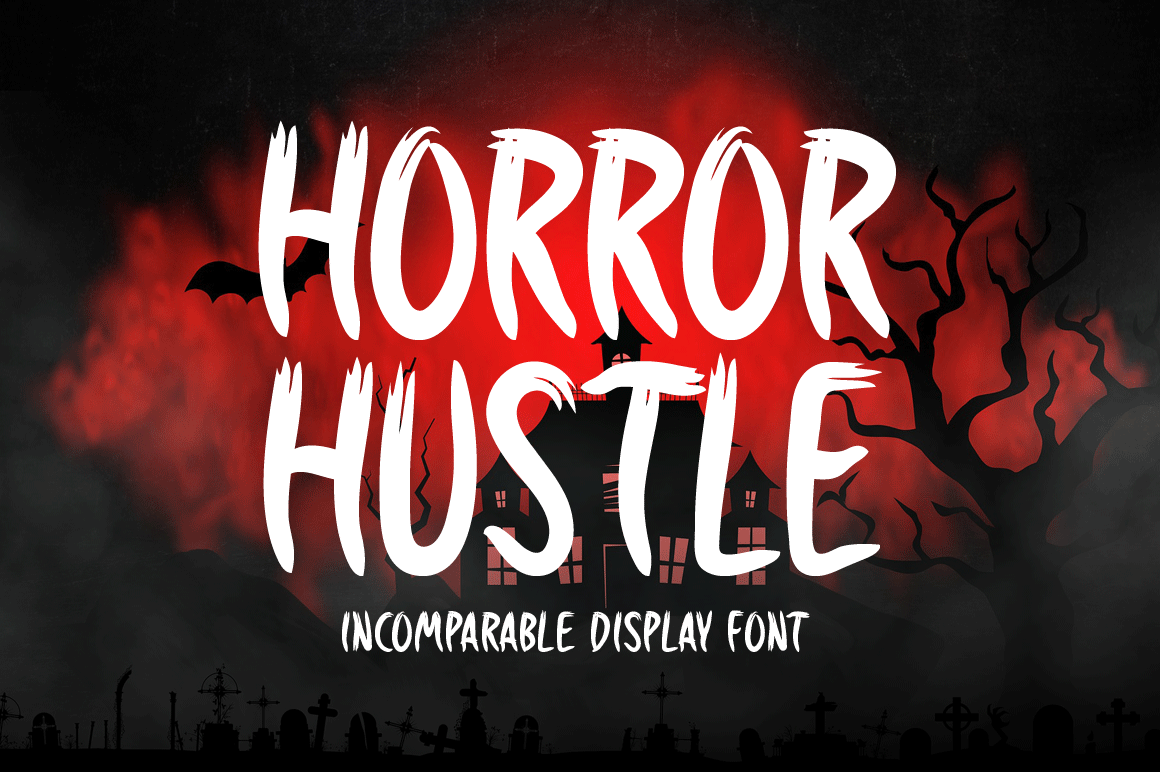
Introducing Horror Hustle!
Horror Hustle is a casual display font. It is perfectly suitable for any Halloween-related project or crafty idea! The only limit is your imagination.
Includes a range of multilingual support